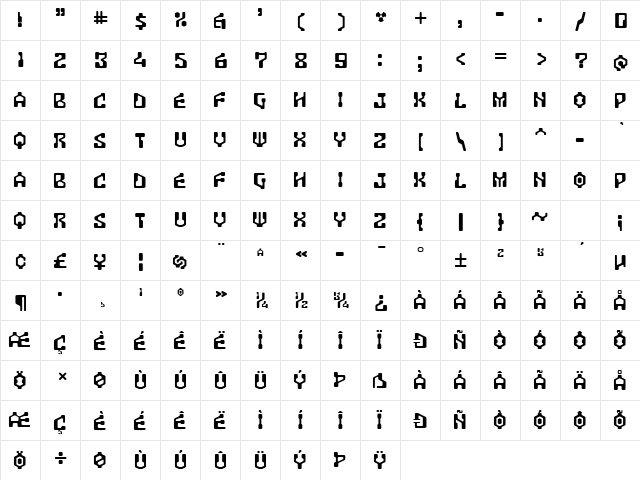
Antar Regular
| Foundry | Andrew Young |
| Designer | Andrew Young |
Design Context for Antar Typeface
Antar is a composed and adaptable typeface that performs quietly and consistently across a wide range of design contexts.